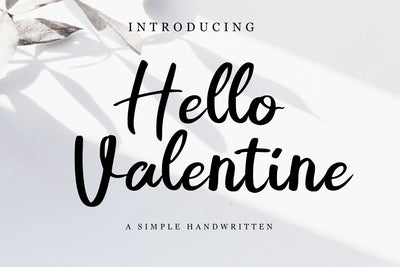
Hello Valentine
Hello Valentine is a sweet and subtle handwritten font. The beautiful font conveys a romantic feel to anyone looking at it. Use it for wall hangings, wedding invitations, logos, social media posts, and any project that requires impressive handwriting